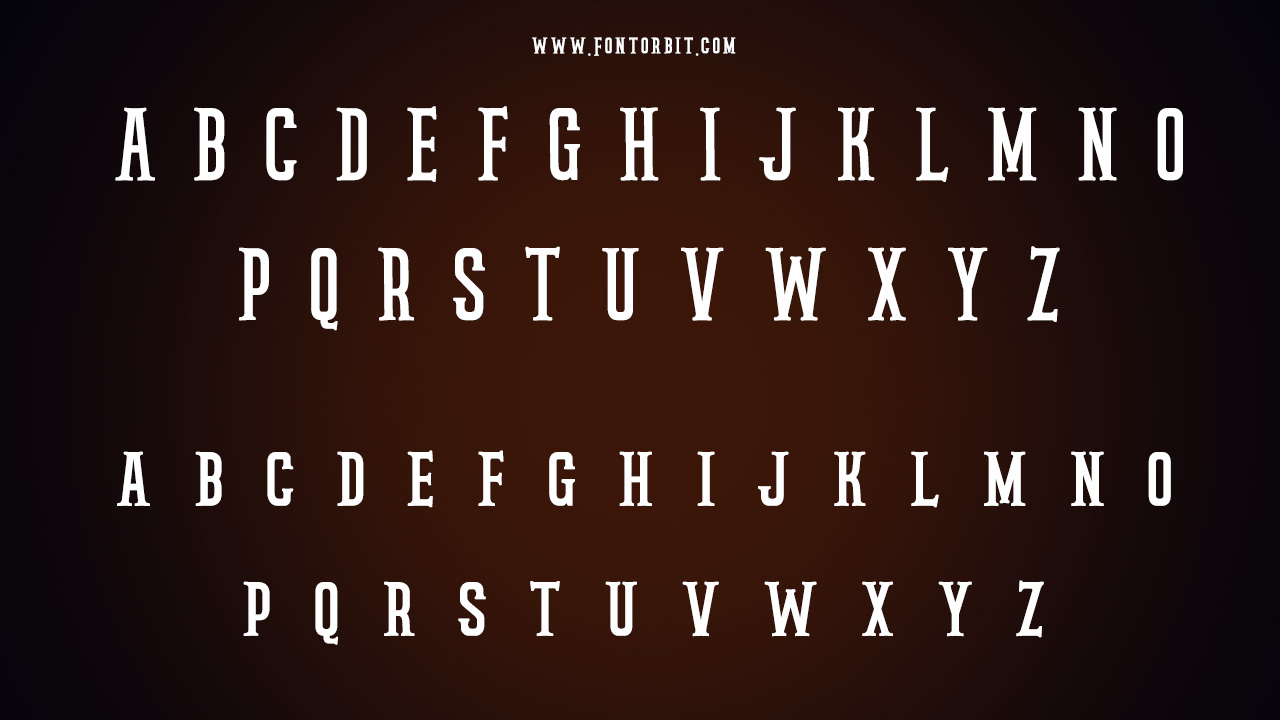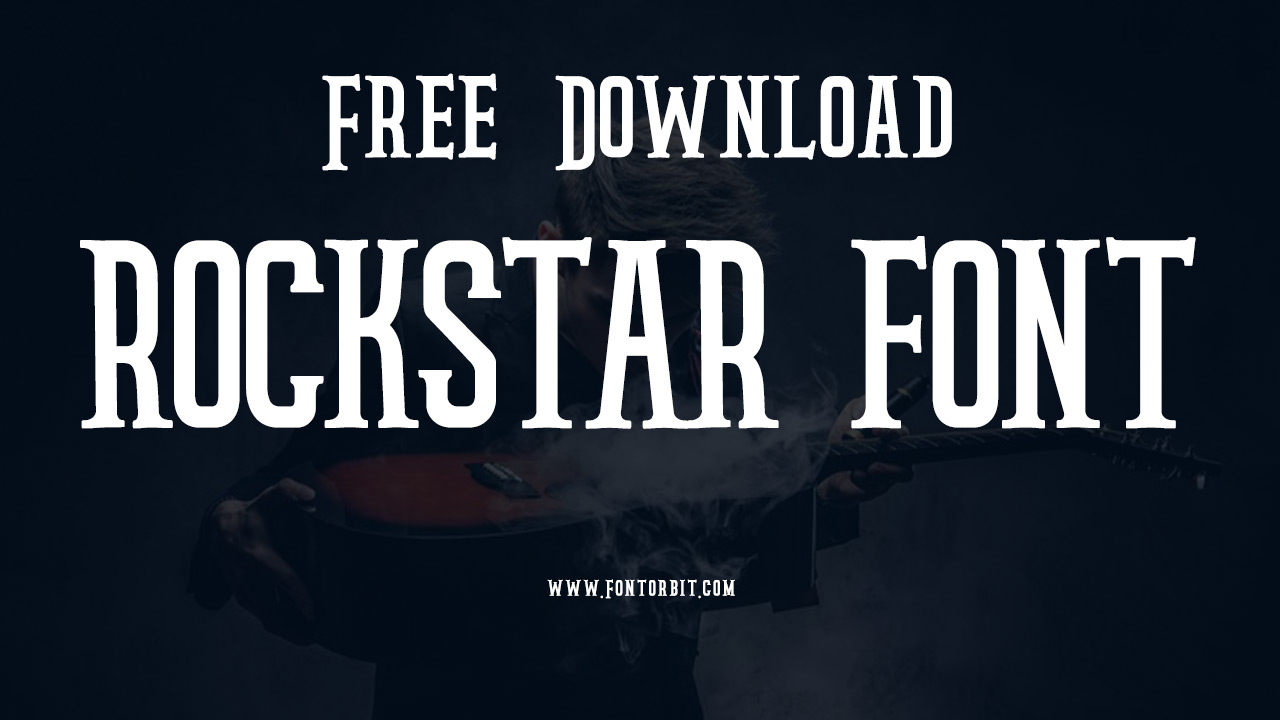
Type Of The Rockstar Font (Font Family)
Rockstar Font is categorized as a display typeface with a contemporary aesthetic. It draws inspiration from late 19th and early 20th-century sans-serifs. This creative fusion results in a bold and dynamic style, ideal for various design applications. The font family includes:
Rockstar Font is perfect for projects that require a striking and modern touch. Its bold design makes it well-suited for:
- Logo design
- Concert posters
- Merchandise
- Event promotions
- Creative graphics
The Rockstar Font Found in Use
Rockstar Font is an energetic typeface that adds a modern flair to any design. Whether you’re creating promotional materials, branding elements, or concert graphics, Rockstar is a versatile choice that captures attention and exudes style.
1.What Are The Components Of Rockstar Font?
Rockstar Font combines Jumpin’ Jack and Rock Electric to create its distinctive look.
2.What Styles Are Available Within The Rockstar Font Family?
The font family primarily includes Rockstar Regular, with a bold and playful aesthetic.
3.What Are The Best Uses For Rockstar Font?
It is great for branding, concert posters, merchandise, and any project that requires a bold and dynamic typography style.
4.How Does Rockstar Font Compare To Other Fonts?
It has a contemporary feel with influences from historical sans-serifs, providing a unique mix of modern and classic design.